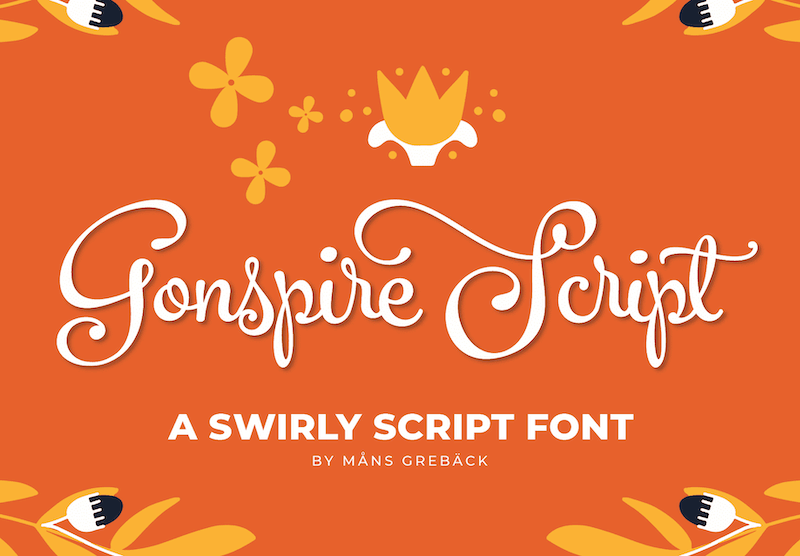
NOTE: This font is for PERSONAL USE ONLY! To purchase a commercial license, visit: http://mn.sg/gonspire-script Gonspire Script is a swirly and swashy typeface that radiates beauty. With elegant curves and swooshes, Gonspire Script is a decorative masterpiece. Its lovely design is accentuated by intricate swashes and beautiful ornaments. Use underscore _ anywhere in a word for swashes. Example: Love_rose Use multiple underscore for different swashes. Example: Wonder________woman For questions, please visit www.mansgreback.com/faq |